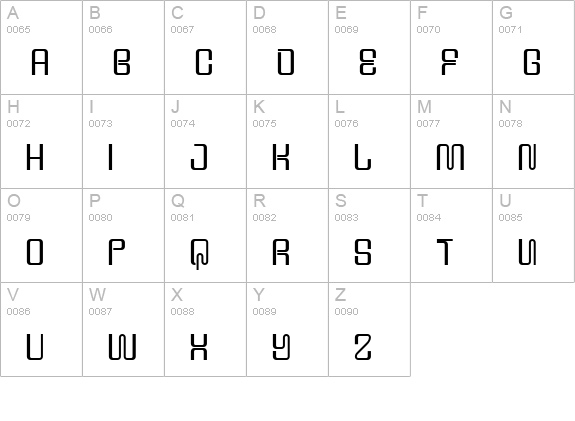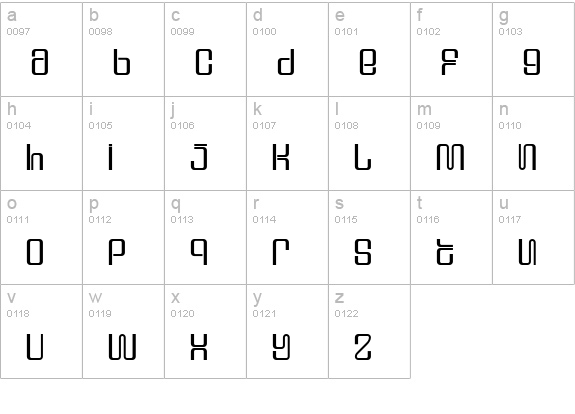
Supervixen Font Details
Supervixen font is a modern and stylish typeface that exudes confidence and sophistication. Its sleek lines and sharp edges give it a unique and edgy look that is perfect for making a bold statement in your designs. Whether you're creating a logo, branding materials, or social media graphics, Supervixen font will add a touch of elegance and flair to your projects. What sets Supervixen font apart is not just its striking appearance, but also the fact that it is available for free download. You can easily access this stunning font at FontsMarket.com, where you can unleash your creativity without any cost. Stand out from the crowd and elevate your designs with Supervixen font - the perfect choice for those who want to make a lasting impression.